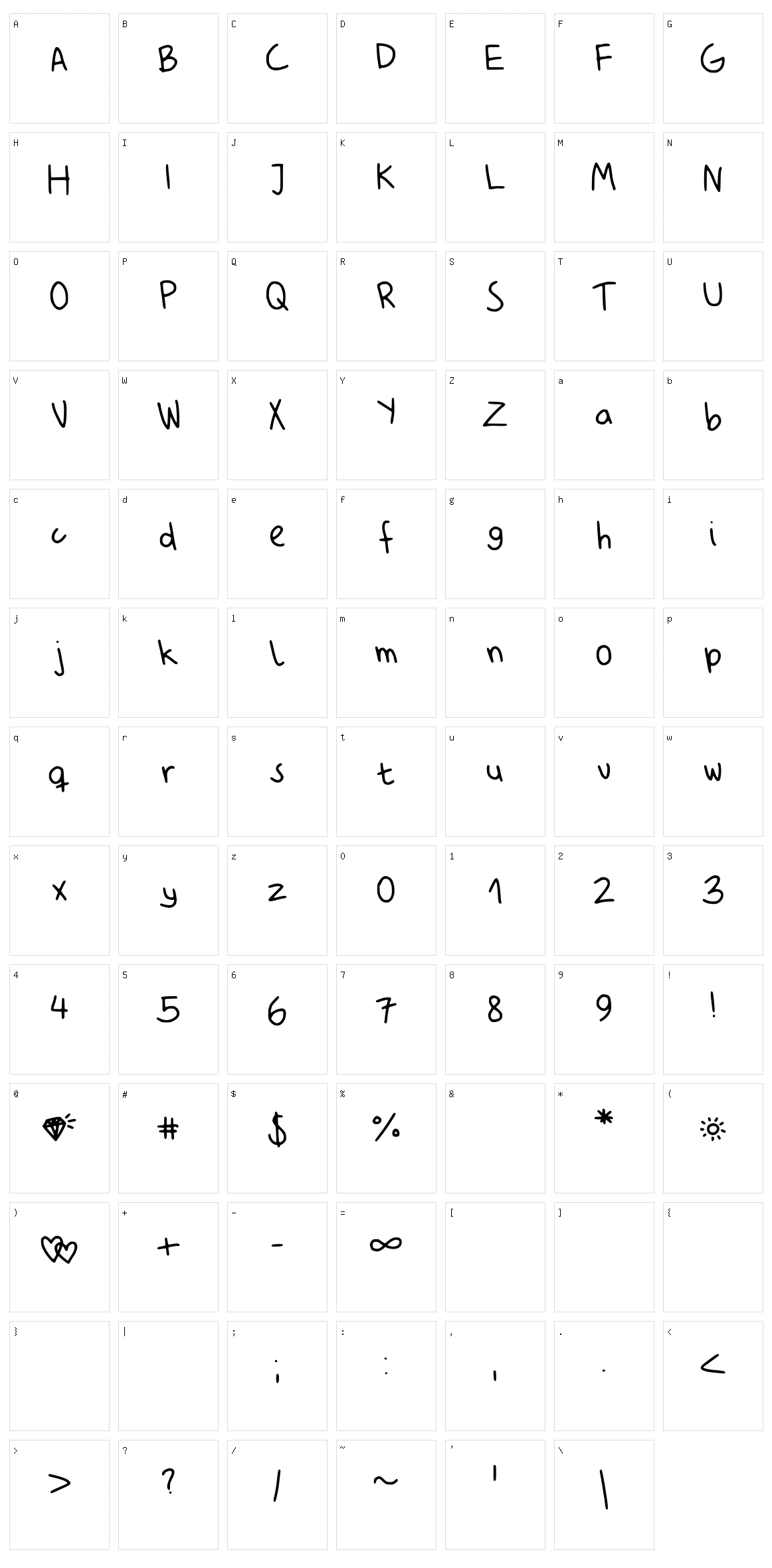
The free font My Unprofessional Handwriting is carefully designed by Anika Tovernic, showcasing a thoughtful balance of creativity and usability and falls under the Script font style. When you download the ZIP file, it contains only 12.7 KB of font files, making it lightweight and quick to download. Please review the license details below to understand permitted usage and distribution rights. If license information is not available, we recommend using this font for personal projects only or contacting the author directly for commercial usage permissions.